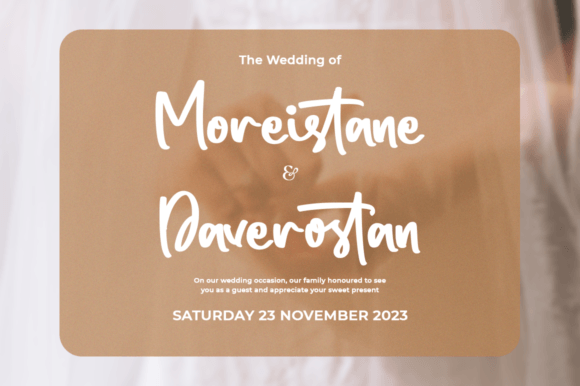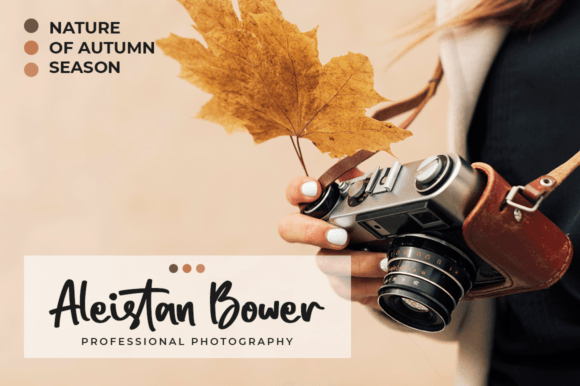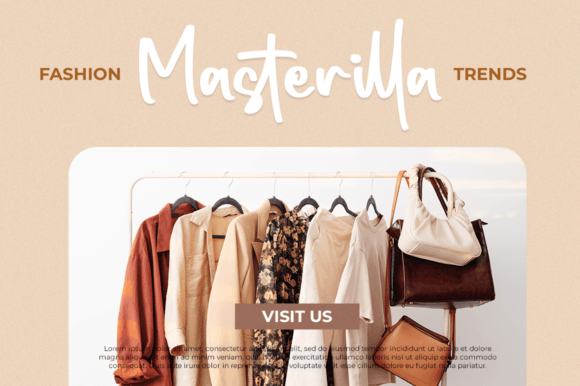
Introduction to Houstones Font
Houstones is a modern script font perfect for a variety of projects.
Every single letter has been carefully crafted to make your text look beautiful .
Why Choose Houstones Font?
Houstones Font offers exceptional quality and versatility, making it a valuable addition to your design toolkit. Whether you’re creating for personal projects or commercial use, Houstones Font delivers professional results.